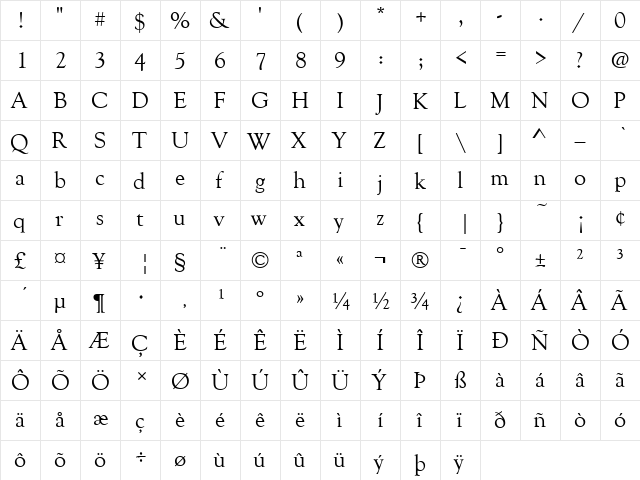
Goudy Old Style2 Regular
Design Context for Goudy Old Style2 Typeface
Goudy Old Style2 takes a measured approach to typography — its balanced proportions and neutral character make it a reliable workhorse for both digital and print work.